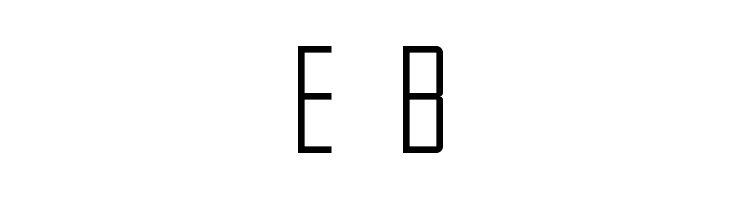
• Extros Backstage caratteri
( Fonts by imagex )
A modern, geometric font with tall, narrow characters and a clean design.
• Extrude caratteri
• Extupida caratteri
A modern, narrow font with a geometric and structured design.
• EXXA caratteri
A bold, geometric font with angular edges and a futuristic style.
• Exynos caratteri
A futuristic, geometric font with bold, interconnected lines and a sci-fi aesthetic.
• Exynos Reflecter caratteri
A futuristic, geometric font with a three-dimensional effect and sharp, angular lines.
• EYAO caratteri
A bold, hand-painted style font with a rough, expressive texture.
• ( www.sparkybuddy.com - David Pustansky - www.sparkybuddy.com/fonts )
Eye Am Confused Optical Illusions  font caratteri gratis
• Eye Monsta caratteri
( Fonts by Illushvara )
A playful, bold font with rounded, whimsical characters.
• Eye Rhyme caratteri